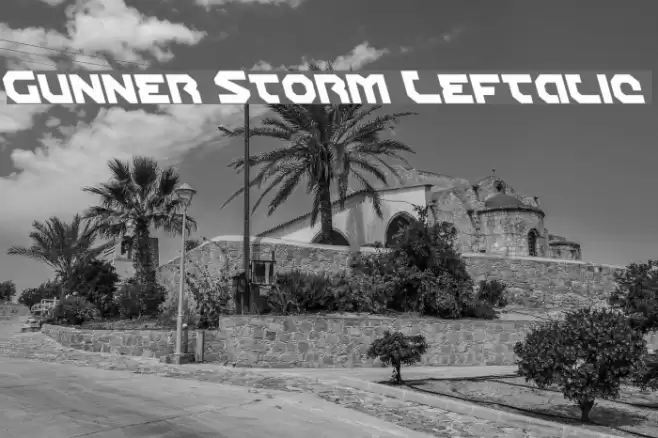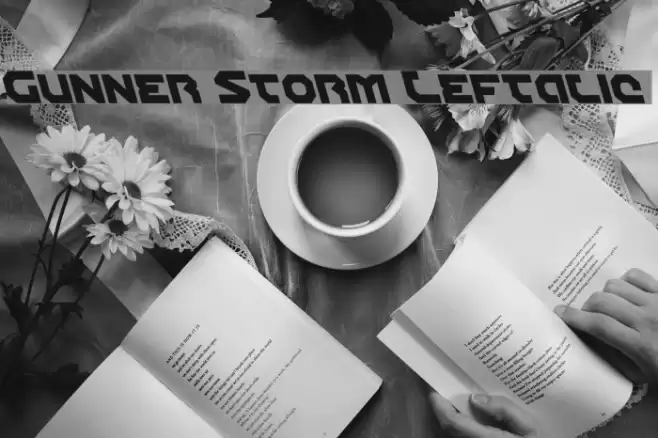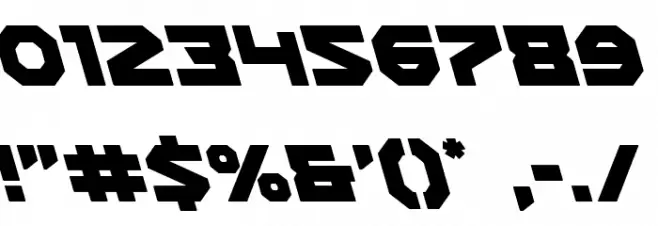
Gunner Storm Leftalic Font
Gunner Storm Leftalic Description
This font features a bold, angular design with a futuristic and aggressive aesthetic. The characters are sharply cut, with a distinct slant that gives a sense of motion and dynamism. The uppercase and lowercase letters maintain a consistent style, emphasizing geometric shapes and sharp edges. Numbers and special characters follow the same design principles, ensuring uniformity across all glyphs. The font's style is reminiscent of military or sci-fi themes, making it suitable for projects that require a strong, impactful visual presence.
A bold, angular font with a futuristic and aggressive style from Uncategorized fonts.
- Font: Gunner Storm Leftalic
- Proposed Projects: Ideal for video game titles, movie posters, branding for tech companies, or any project requiring a bold, futuristic look.
- Overall Style: Futuristic, Aggressive